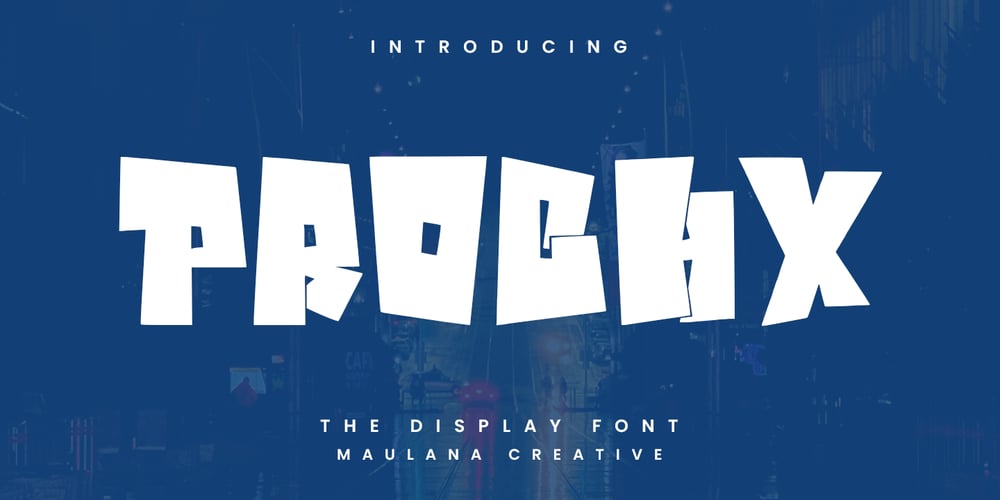
MC Prochx Font Family was designed by Gilang Maulana and published by Maulana Creative. MC Prochx contains 1 styles and family package options. Prochx display font. With bold tall sharp edge stroke, fun character with alternates. To give you an extra creative work. Prochx display font support multilingual more than 100+ language. This font is good for logo design, Social media, Movie Titles, Books Titles, a short text even a long text letter and good for your secondary text font with sans or serif. Make a stunning work with Prochx display font.Cheers,Maulana Creative